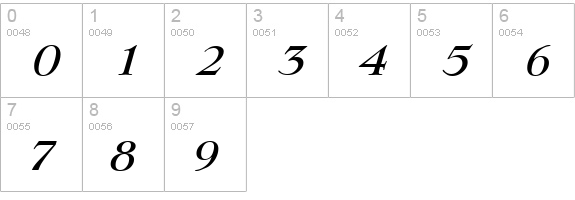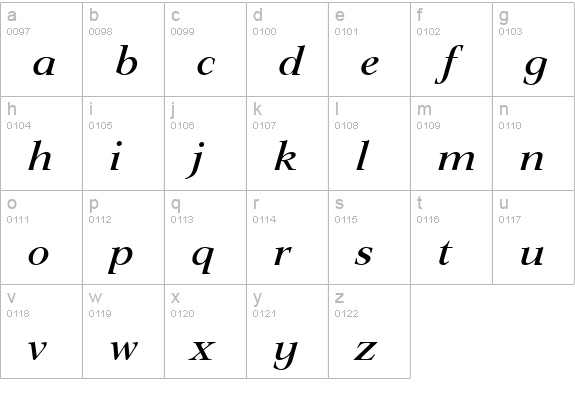
LingwoodSerial-Medium-Italic is a balanced, medium-weight, italic variant in the LingwoodSerial typeface family \xE2\x80\x94 well suited to sub-headlines, navigation, and balanced editorial work.
LingwoodSerial-Medium-Italic is a sophisticated and elegant font that exudes a sense of modernity and refinement. Its sleek and stylish design makes it perfect for a variety of creative projects, from branding to editorial design. The italic styling adds a touch of flair and sophistication, making it a versatile choice for adding a touch of class to any design. What sets LingwoodSerial-Medium-Italic apart is that it is not only visually appealing but also highly functional. Its clear letterforms and balanced spacing ensure excellent readability in both print and digital formats. Whether used in headlines, body text, or as part of a logo, this font commands attention and leaves a lasting impression. The best part? LingwoodSerial-Medium-Italic is available for free download at FontsMarket.com. Now you can elevate your design projects with this premium font without having to break the bank. Don't miss out on the opportunity to enhance your creations with the timeless elegance of LingwoodSerial-Medium-Italic.